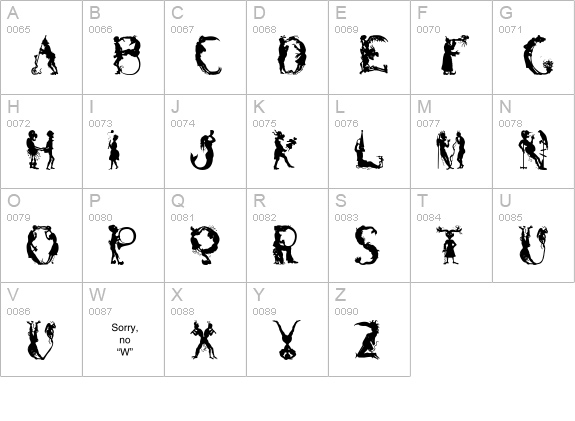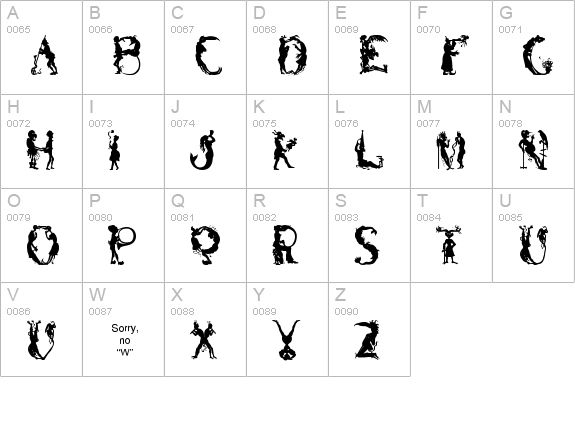
Bizarro Plain Font Details
Bizarro Plain font is a whimsical and quirky typeface that is sure to add a touch of eccentricity to any design project. With its unique and offbeat letterforms, this font is perfect for making a statement and standing out from the crowd. Bizarro Plain font is freely available to download at FontsMarket.com, allowing you to unleash your creativity without any cost constraints. Whether you're working on a fun poster, a playful logo, or a quirky social media graphic, Bizarro Plain font is the perfect choice for adding a touch of unconventional charm to your designs. Get your hands on this free font today and let your imagination run wild!